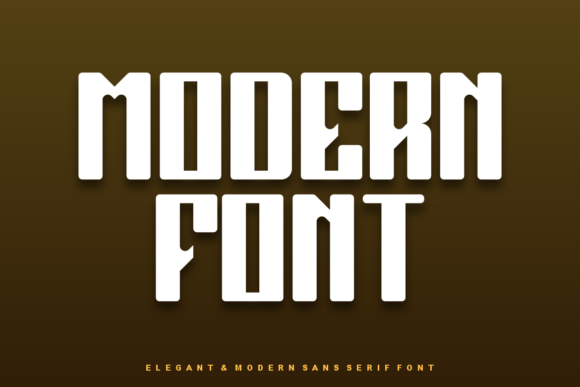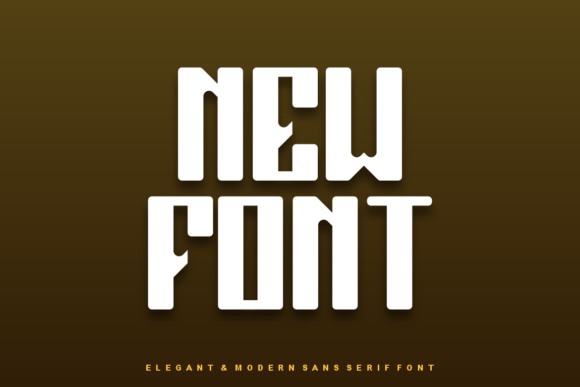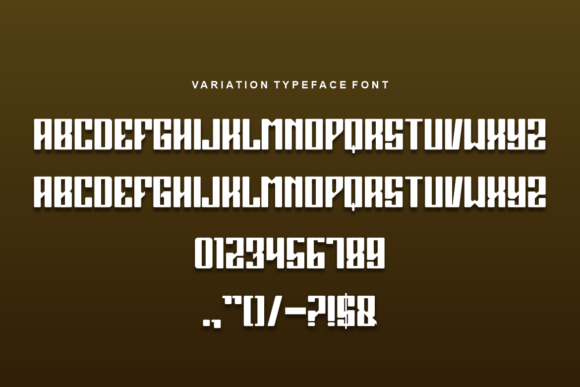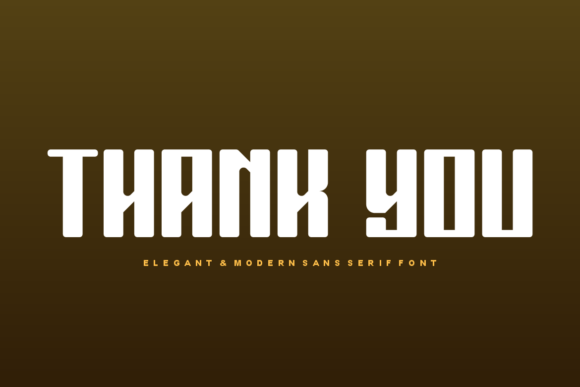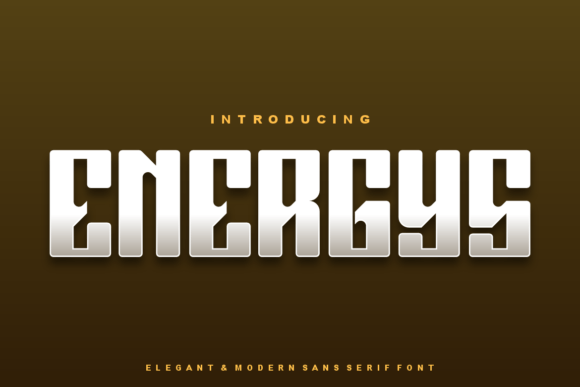
Introducing Energys Font: Elevate Your Designs with a Cool, Modern, and Stylish Display Font
Are you tired of using the same old fonts in your creative projects? Do you want to add a touch of modernity and style to your designs? Look no further than Energys Font! This cool, modern, and stylish display font is sure to take your designs to the next level. With its unique and sleek design, Energys Font is perfect for designers, crafters, and anyone looking to add a bit of flair to their projects.
What Makes Energys Font So Special?
Energys Font is a display font that is designed to make a statement. Its modern and stylish design makes it perfect for a variety of creative projects, from branding and advertising to packaging and web design. The font features clean lines, sharp edges, and a sleek aesthetic that is sure to grab attention. Whether you’re looking to create a bold and eye-catching headline or a subtle and sophisticated label, Energys Font is the perfect choice.
Key Features of Energys Font
- Modern and Stylish Design: Energys Font features a unique and modern design that is sure to elevate your designs.
- Clean Lines and Sharp Edges: The font’s clean lines and sharp edges give it a sleek and sophisticated aesthetic.
- Perfect for Display Use: Energys Font is designed specifically for display use, making it perfect for headlines, titles, and labels.
- Easy to Read: Despite its bold and stylized design, Energys Font is easy to read, even at smaller sizes.
- Versatile: Energys Font can be used in a variety of creative projects, from branding and advertising to packaging and web design.
How to Use Energys Font in Your Creative Projects
Using Energys Font in your creative projects is easy! Here are a few tips to get you started:
- Pair it with a Simple Font: Pair Energys Font with a simple font to create a bold and eye-catching contrast.
- Use it for Headlines and Titles: Energys Font is perfect for headlines and titles, where its bold and stylized design can really shine.
- Experiment with Different Colors: Energys Font looks great in a variety of colors, so don’t be afraid to experiment and find the perfect hue for your design.
- Use it to Add Emphasis: Energys Font can be used to add emphasis to certain words or phrases, drawing attention to key parts of your design.
Why Designers and Crafters Love Energys Font
Designers and crafters love Energys Font for a variety of reasons. Here are a few:
- It’s Unique: Energys Font is a unique and original font that can help set your designs apart from the crowd.
- It’s Versatile: Energys Font can be used in a variety of creative projects, making it a great addition to any designer’s toolkit.
- It’s High-Quality: Energys Font is a high-quality font that is designed to produce crisp and clear results, even at smaller sizes.
| Font Name | Energys Font |
| Author | cozzdesign |